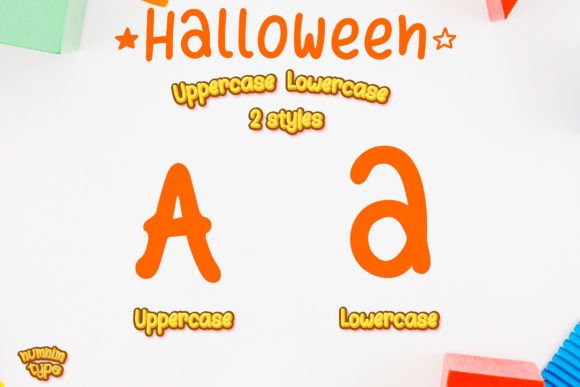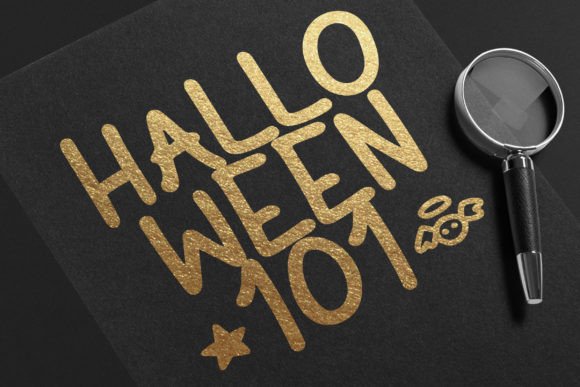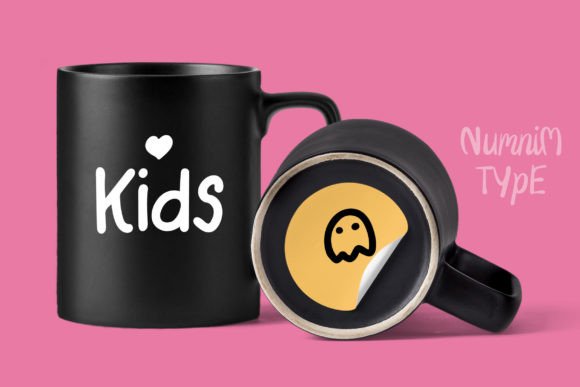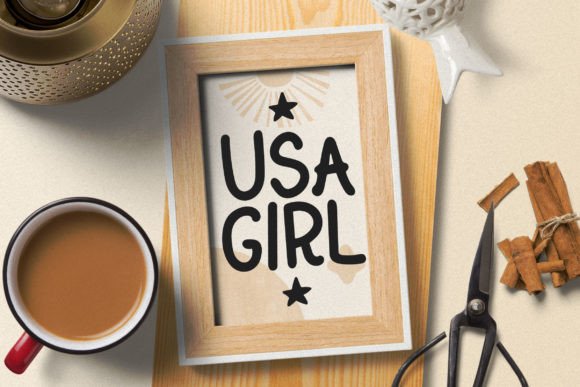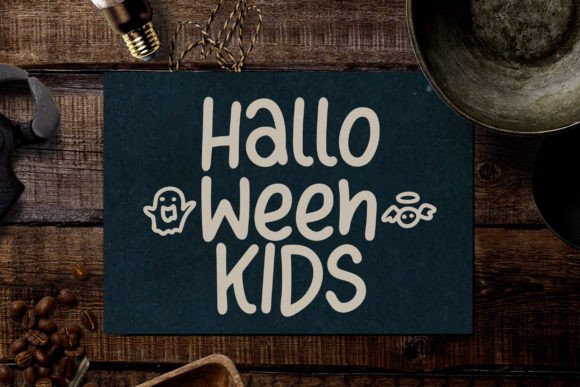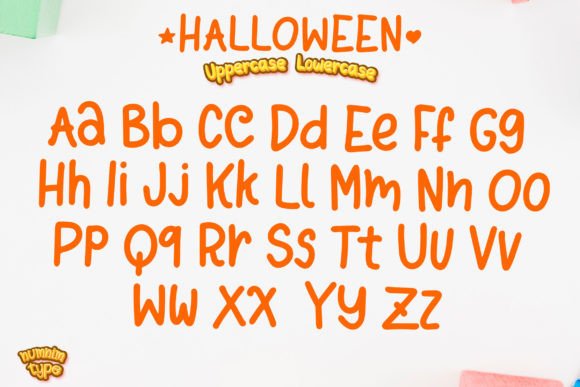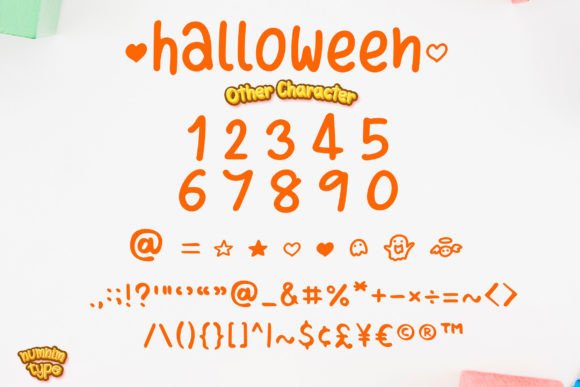
Halloween Font
About Halloween Font
Introducing “Halloween,” a cute and uniquely crafted handwritten font designed to bring a fun and playful vibe to your Halloween-themed projects. With its whimsical and festive characters, Halloween is the perfect font for various applications, including stickers, mugs, t-shirts, ornaments, Halloween event cards, and more. Let this font be the playful and charming element that adds a touch of Halloween spirit to your creative endeavors.
**Key Features of Halloween Font:**
1. **Cute and Playful Design:**
Halloween features a cute and playful design, making it an ideal choice for projects that require a whimsical and festive touch. The characters are crafted to capture the fun essence of Halloween.
2. **Versatility for Various Products:**
The font is versatile and well-suited for a variety of products. Whether you’re creating stickers, mugs, t-shirts, or Halloween event cards, Halloween font brings a unique charm to each application.
3. **Festive Halloween Spirit:**
Halloween font is crafted with the festive Halloween spirit in mind. Its playful characters and overall design contribute to the lively and joyful atmosphere associated with Halloween celebrations.
4. **Perfect for Seasonal Projects:**
Use Halloween font for seasonal projects, events, or products that are centered around Halloween. Its charming style adds a delightful and festive element to your designs.
Whether you’re working on personal Halloween-themed crafts or creating products for seasonal events, Halloween font is designed to bring a dose of fun and playfulness to your creative projects. Let this font be the go-to choice for infusing a Halloween spirit into your designs, and explore the creative possibilities it offers for making your projects stand out with a touch of festive charm.